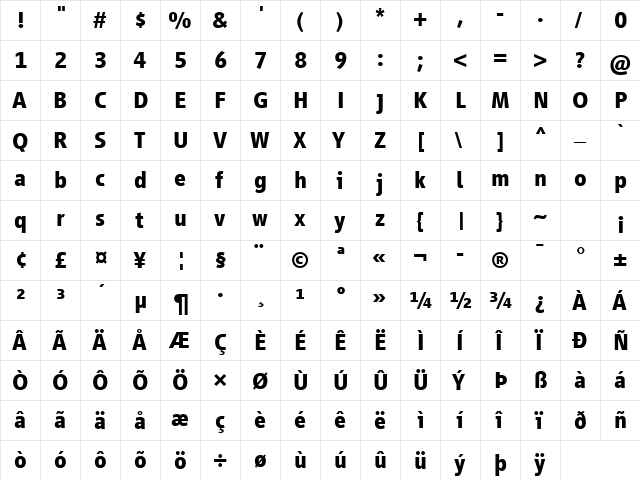
Vialog LT Com Bold
| Foundry | Linotype GmbH |
| Designer | Werner Schneider |
Design Context for Vialog LT Com Typeface
Vialog LT Com is a composed and adaptable typeface that performs quietly and consistently across a wide range of design contexts. The heavy weight commands attention and anchors typographic hierarchies.